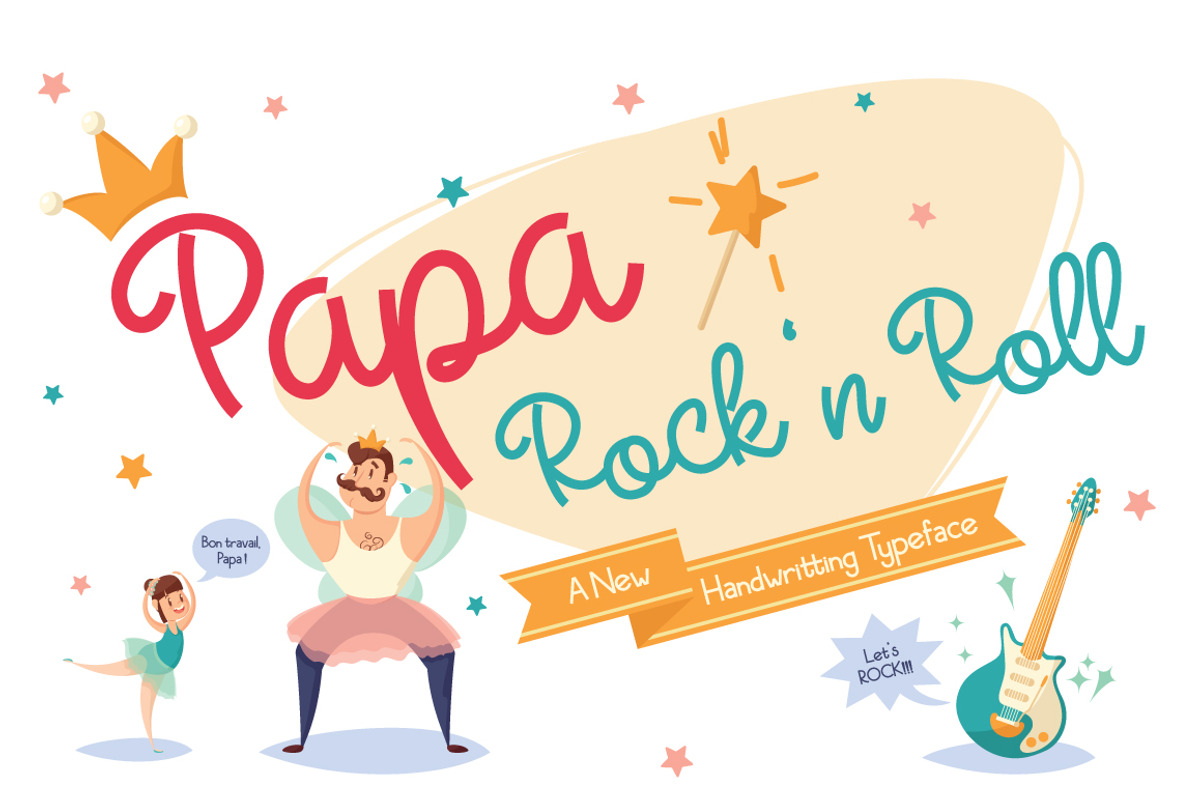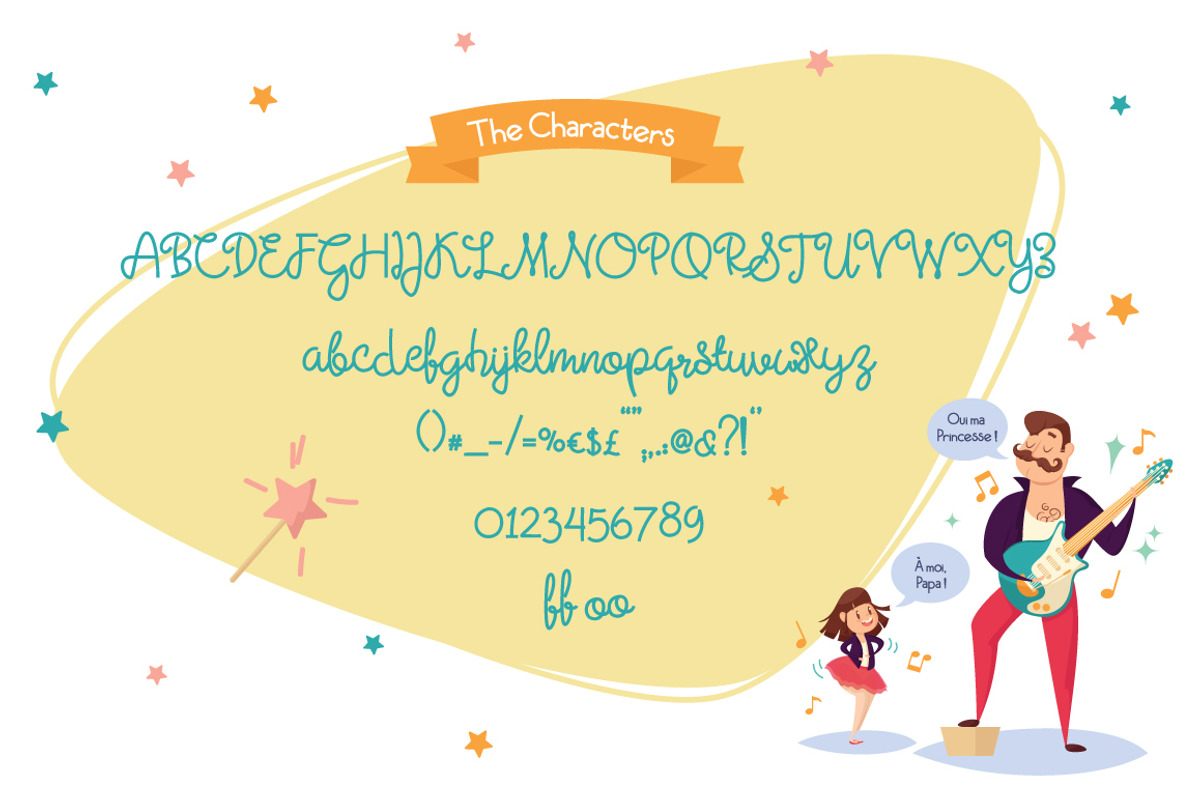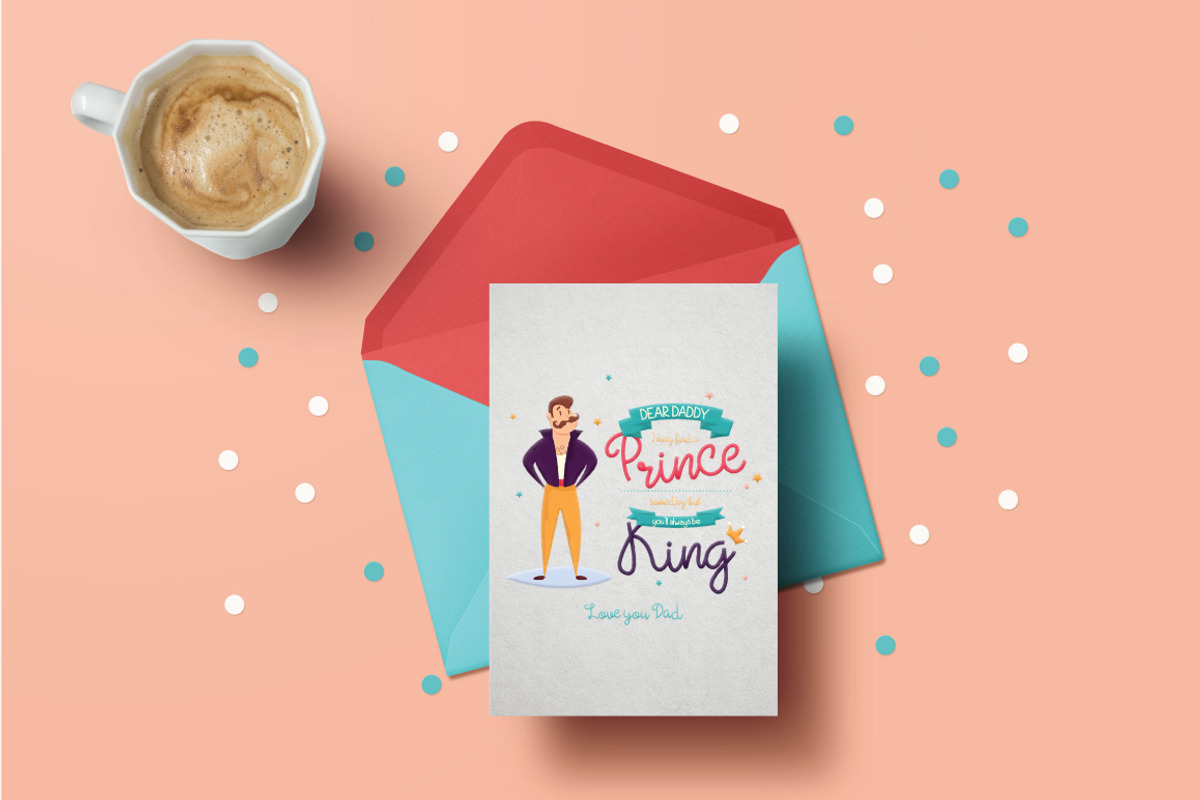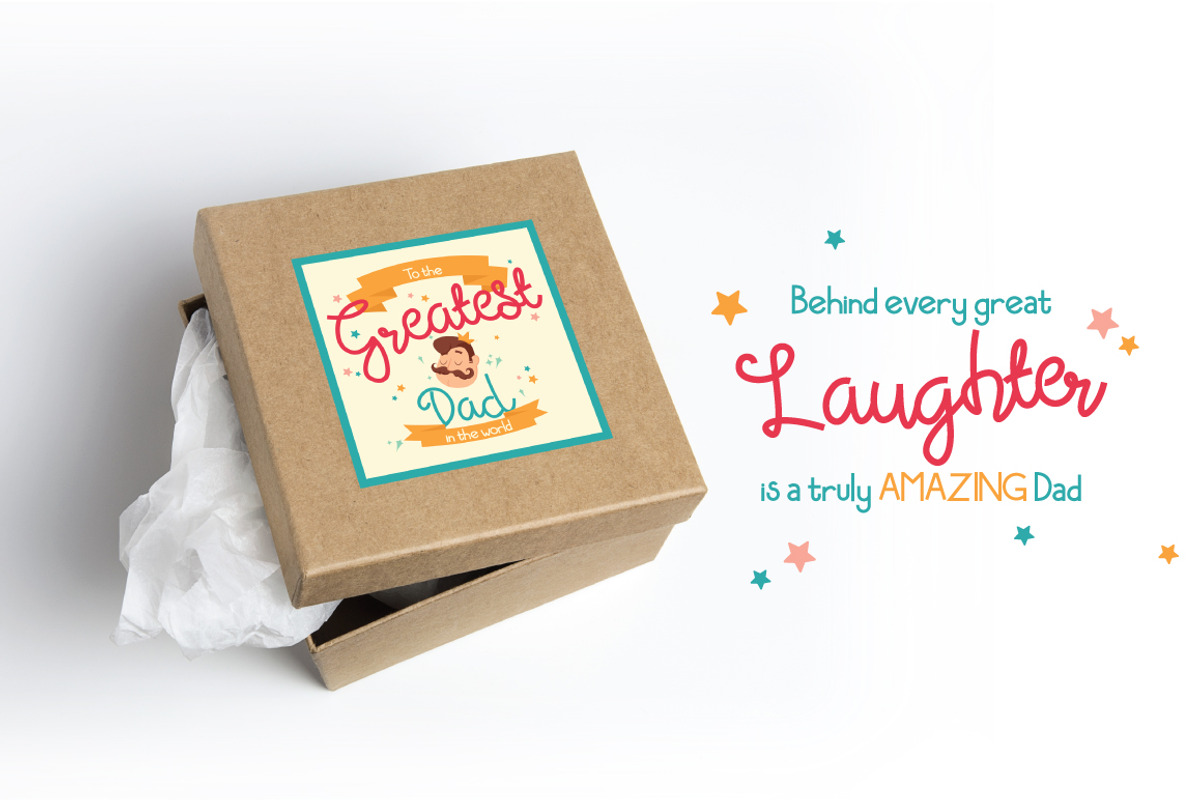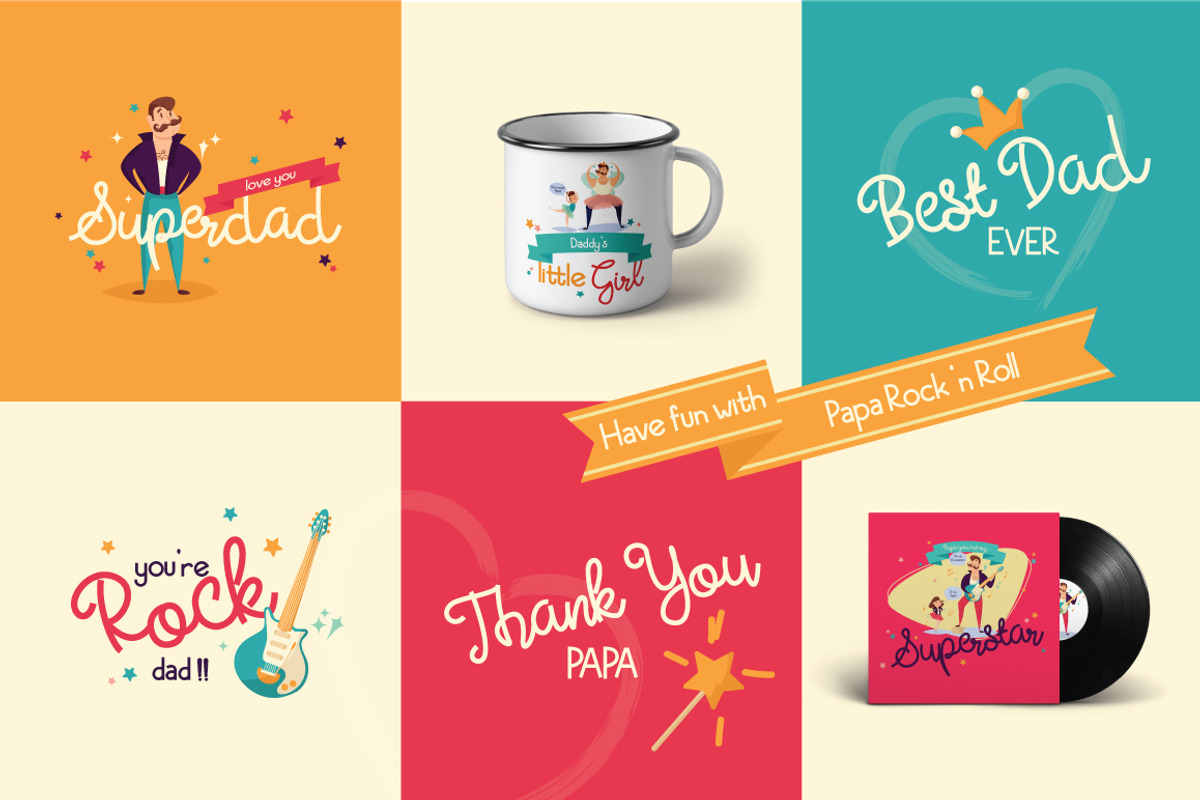
Papa Rock n Roll
Papa Rock n Roll a new fresh & modern handwritting with a handmade style and full of happines.
They are perfect to use for: logos, branding, home decor, signs, mugs, shirts, pantry labels, stickers, greeting cards, posters, social media, planner prints, and etc. Just have a great fun with Papa Rock n Roll on your design!
Uppercase letters Lowercase letters Numbers Punctuation Ligatures Language Support : Currently English Only =======================================